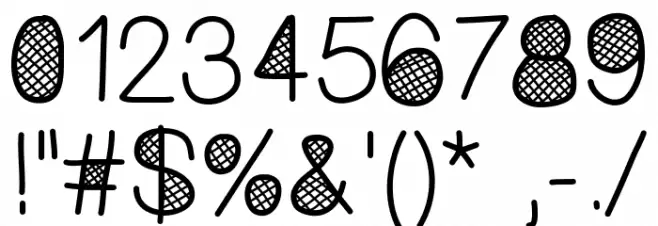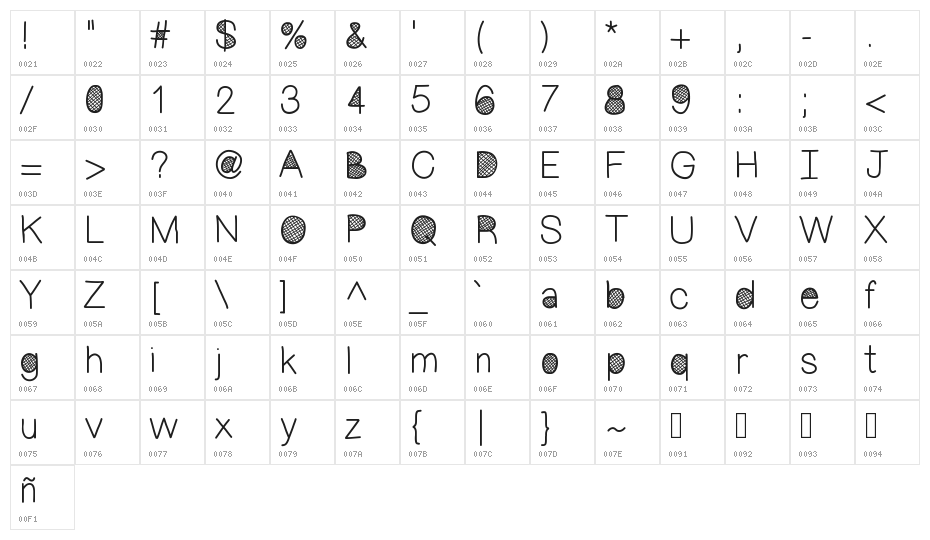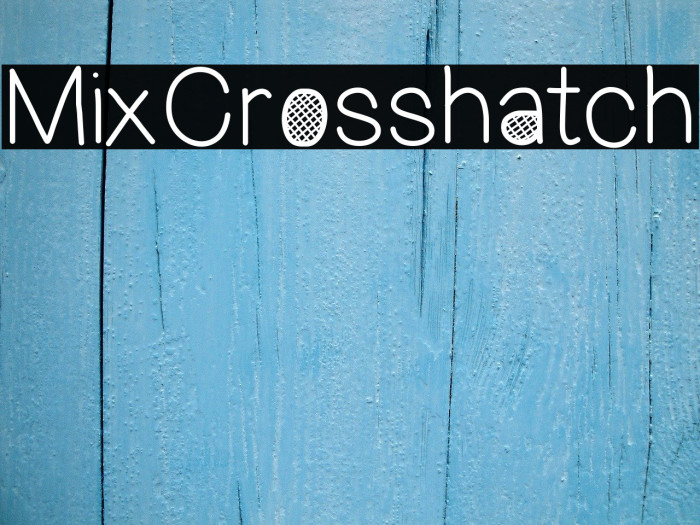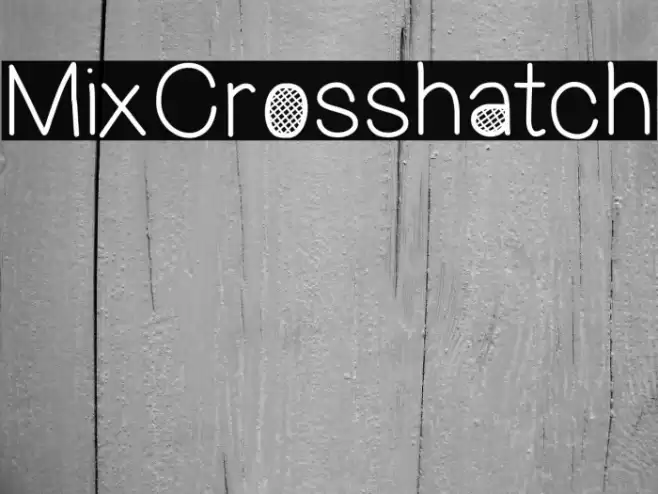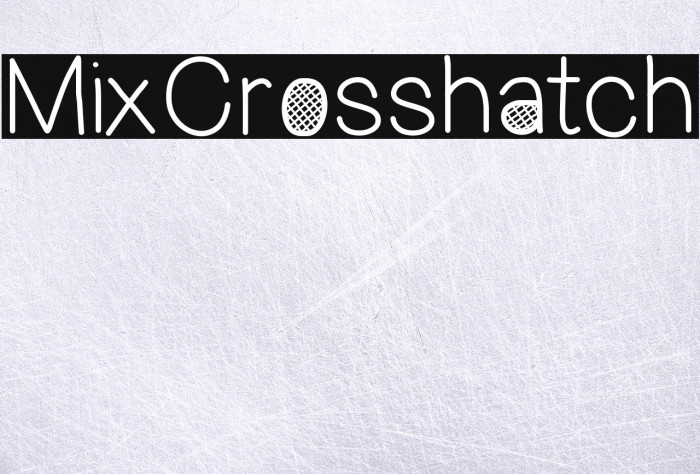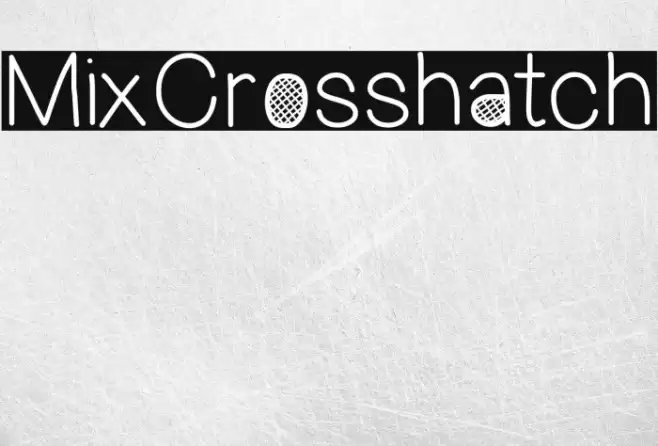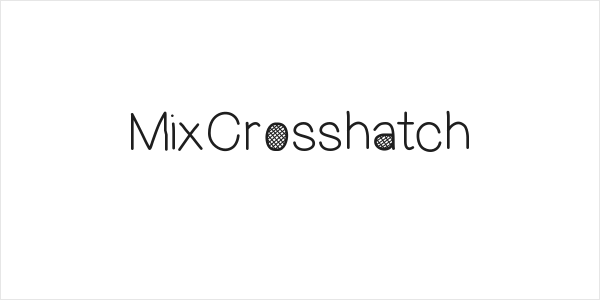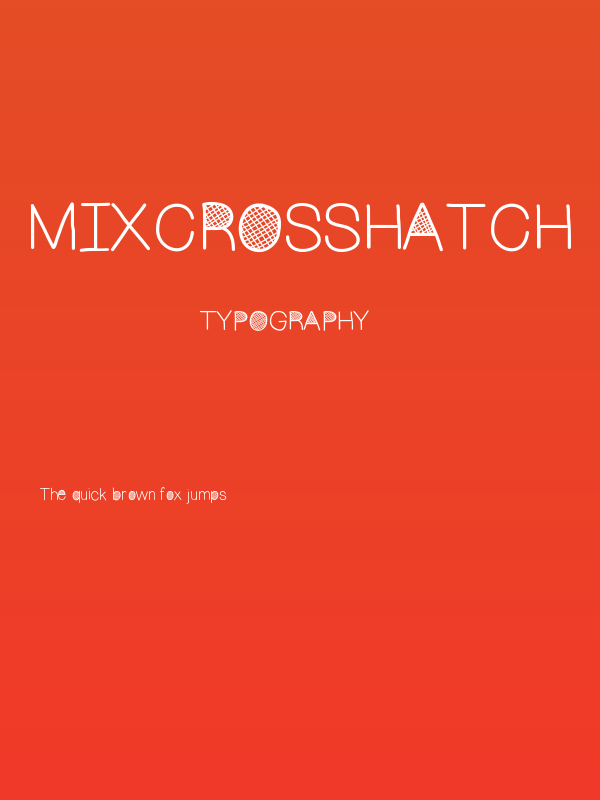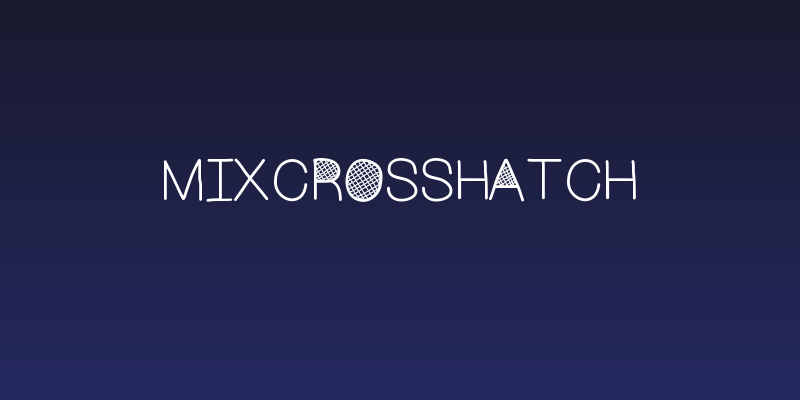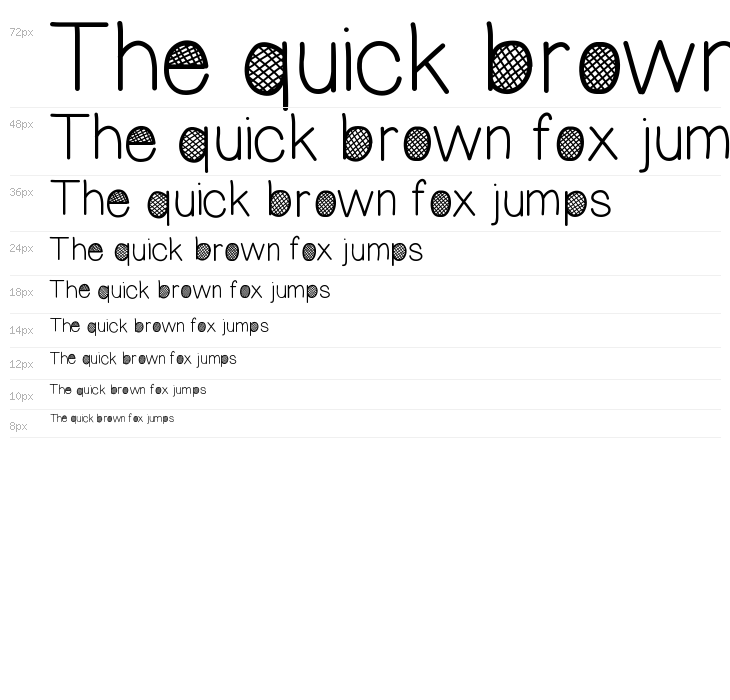
MixCrosshatch Font
MixCrosshatch Description
This font features a playful and artistic design with a unique crosshatch pattern filling select characters, adding a textured and dynamic look. The letters are rounded and slightly irregular, giving a hand-drawn, whimsical feel. The uppercase and lowercase letters maintain a consistent style, with the crosshatch pattern appearing in some of the characters, creating a striking contrast against the clean lines of the others. Numbers and special characters follow the same design principles, ensuring a cohesive appearance across all elements. This font is perfect for projects that require a creative and informal touch, making it ideal for artistic and playful designs.
| Overall Style | Whimsical, Artistic |
| Proposed Projects | Ideal for children's books, creative posters, playful branding, and artistic invitations. |